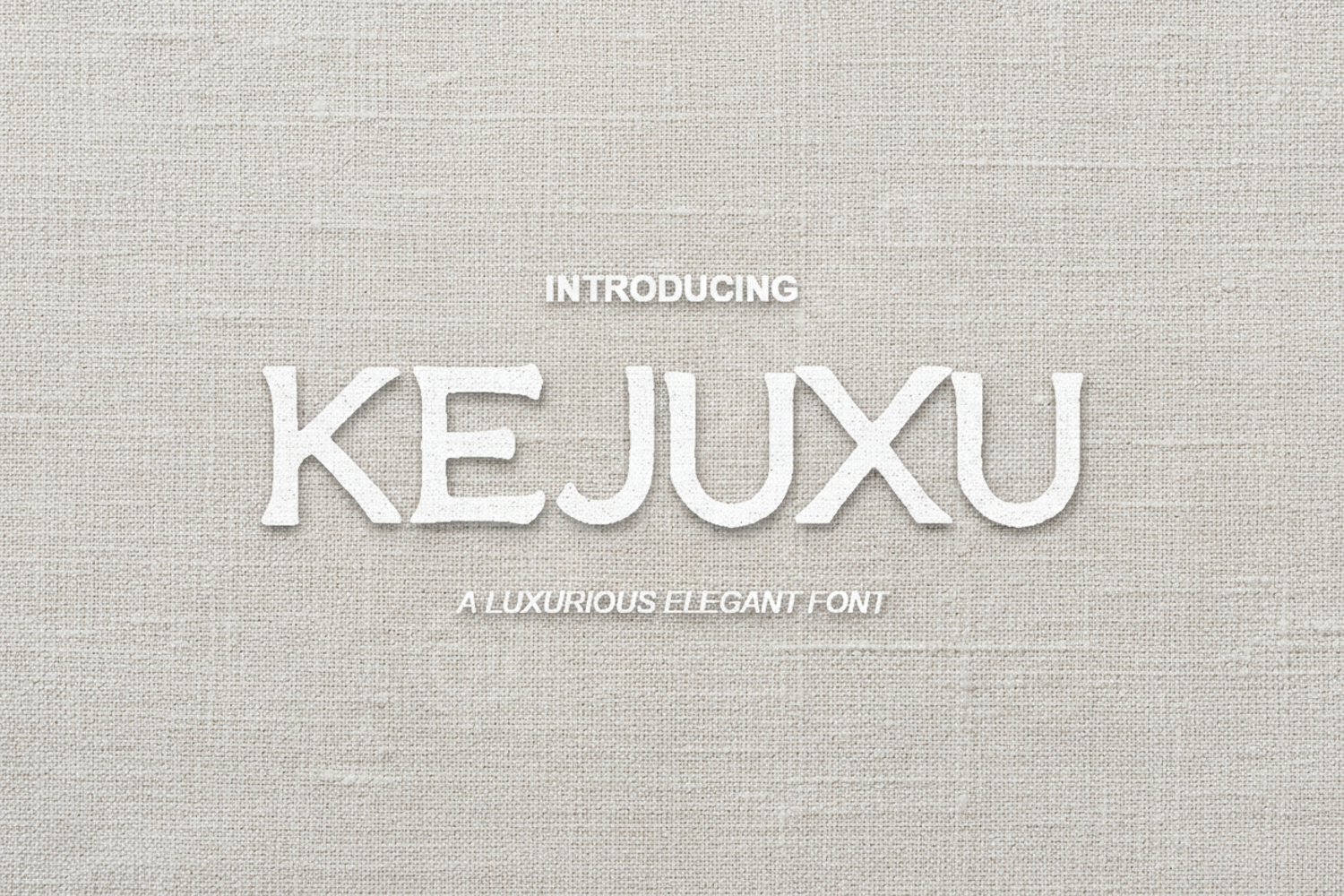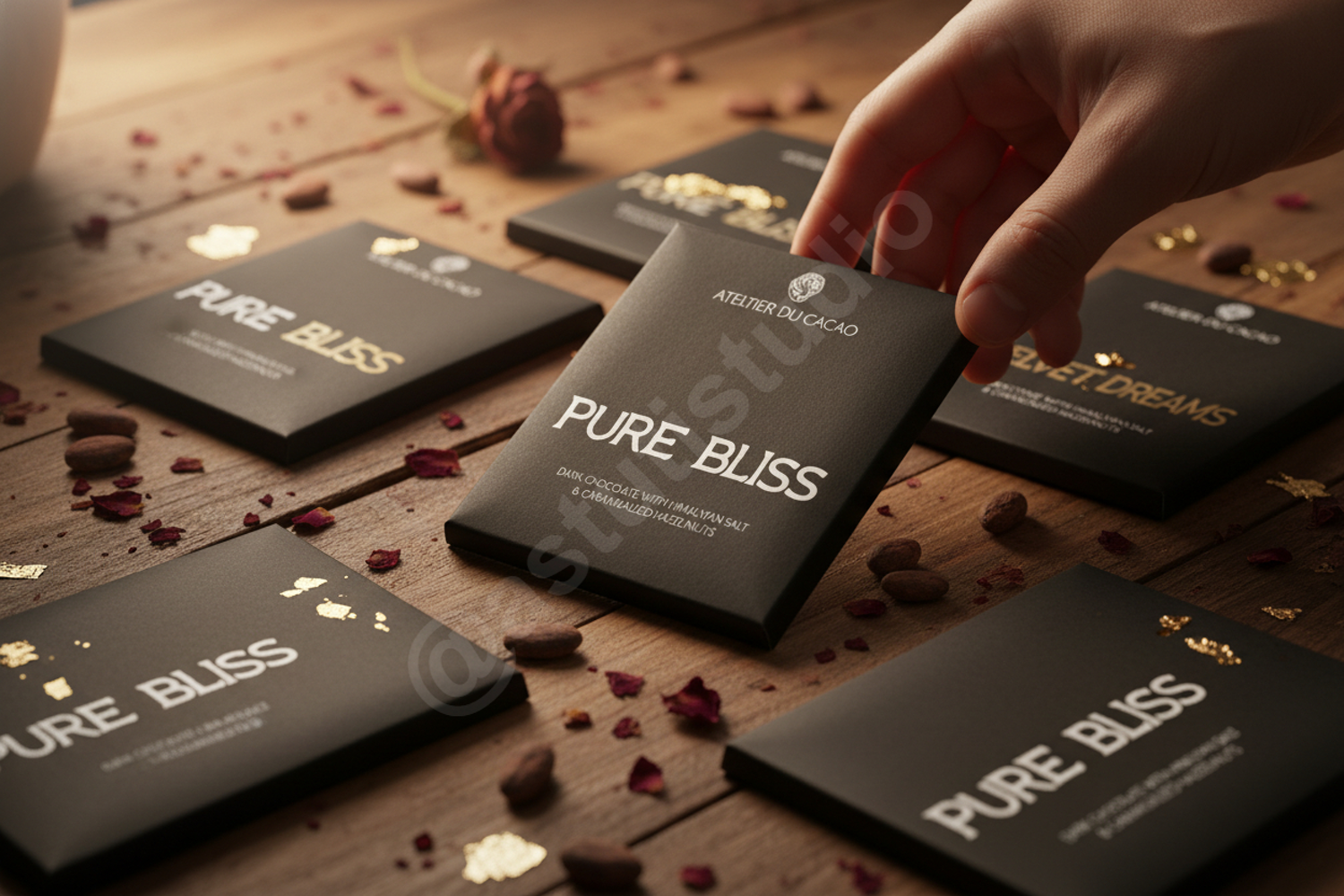
Kejuxu | Elegant & Sophisticated Modern Serif
Kejuxu
Kejuxu is a premium serif typeface designed to bring a touch of class and modern sophistication to any creative project. With its clean lines and perfectly balanced proportions, this font offers a seamless blend of timeless elegance and contemporary style. Whether you are working on high-end branding or minimalist editorial designs, Kejuxu provides the versatility needed to make your typography stand out with professional polish.
Kejuxu was crafted for designers who value precision and aesthetic appeal. Its unique character shapes and refined finish make it an ideal choice for both print and digital media, ensuring your message is delivered with clarity and grace.
- Luxury Branding and Identity: Perfect for high-end fashion and lifestyle brands.
- Editorial Layouts: Enhances the readability and style of magazines and books.
- Logo Design: Create memorable wordmarks with a professional edge.
- Wedding Stationery: Adds a sophisticated touch to invitations and programs.
- Social Media Graphics: Elevate your digital presence with clean, modern typography.
- Website Headers: Capture attention with bold yet refined display text.